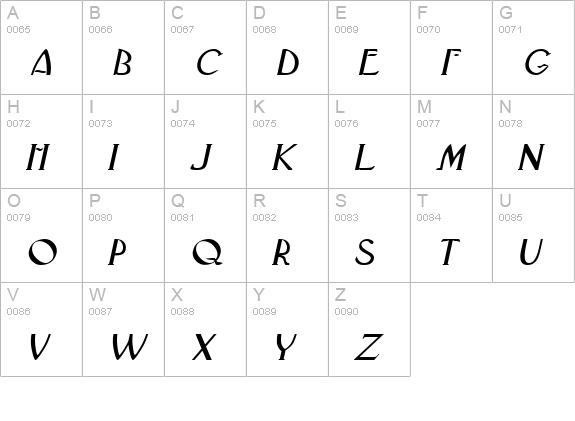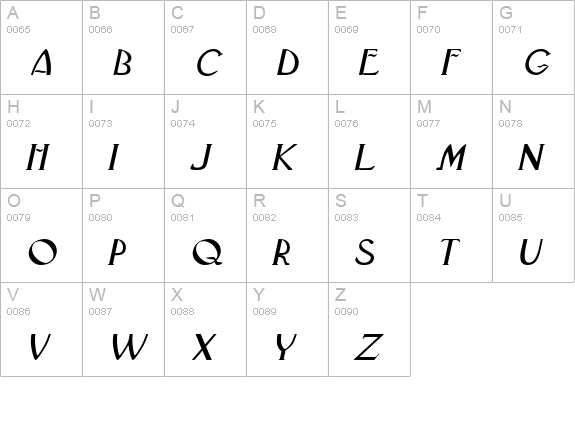
Deco-Extended Italic is a distinctive, extended-width, italic variant in the Deco typeface family \xE2\x80\x94 well suited to design and typography projects.
The Deco-Extended Italic font is a stylish and sophisticated typeface that embodies a perfect blend of elegance and modernity. Its sleek and elongated letterforms exude a sense of luxury and refinement, making it an ideal choice for projects that require a touch of sophistication. The italicized design adds a dynamic flair to the font, making it stand out while maintaining a sense of gracefulness. Best of all, the Deco-Extended Italic font is available for free download at FontsMarket.com. This means you can easily access and use this stunning typeface for a wide range of creative projects without any cost. Whether you're designing invitations, posters, logos, or any other project that requires a touch of elegance, the Deco-Extended Italic font is sure to elevate your design and leave a lasting impression. Download it today and add a touch of luxury to your creations!